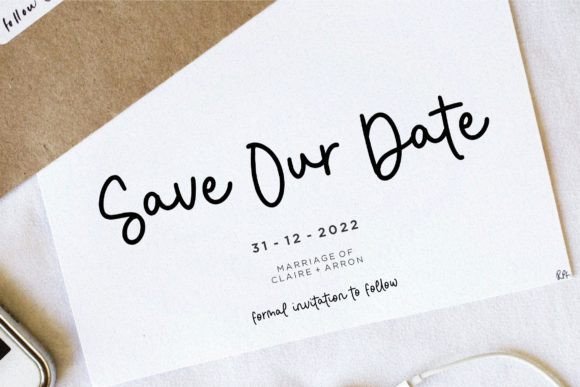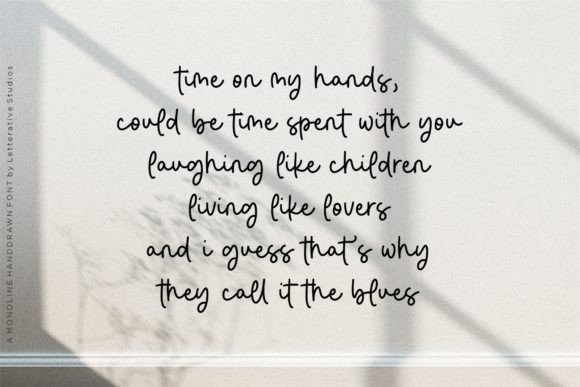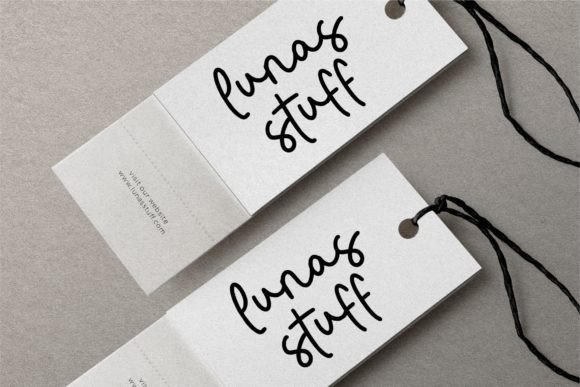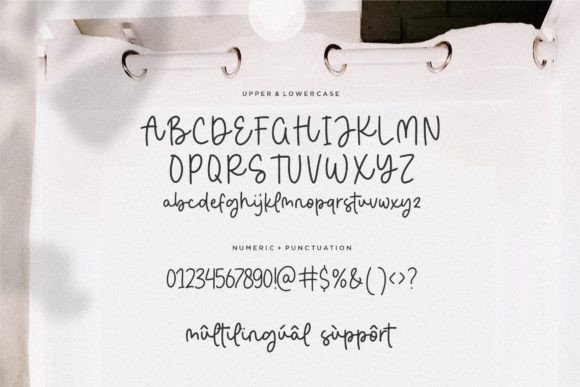
Sigitarian Font
A Fresh, Modern Handwritten Script Font
Sigitarian is a unique and contemporary handwritten script font that instantly elevates any design project. With its casual and relaxed style, this font adds a fresh, modern vibe that helps your work stand out.
If you’re tired of ordinary typefaces and want something that feels personal and authentic, Sigitarian is the perfect choice.
Perfect for Logos and Branding
The clean lines and dynamic flow of Sigitarian make it ideal for logos and branding materials. Its handcrafted look creates a sense of originality and warmth that resonates with audiences.
Use it for signature-style logos, brand names, or product labels to communicate a sense of creativity and individuality. The smooth connections between letters make every word feel cohesive and visually pleasing.
Great for Social Media and Marketing
Sigitarian is also perfect for social media graphics, promotional content, and advertisements. Its modern feel and eye-catching style help your posts grab attention in crowded feeds.
Pair it with clean backgrounds and minimalist imagery to let the unique letterforms shine. Whether you’re designing Instagram stories, Pinterest pins, or Facebook ads, this font will help create a polished, professional look.
Enhance Invitations and Packaging
Sigitarian isn’t just for digital projects—it looks fantastic in print, too.
Use it on invitations for weddings, parties, and special events to create a personal, handwritten touch. For product packaging, it adds a crafted feel that consumers connect with. From boutique soaps to handmade candles, Sigitarian makes products feel unique and high-quality.
Easy to Use and Highly Versatile
Sigitarian includes uppercase and lowercase letters, numerals, punctuation, and a selection of ligatures and alternates.
Its versatility means you can adapt it to a variety of styles—from casual and playful to elegant and sophisticated. Whether you’re working on quotes, apparel designs, posters, or websites, Sigitarian offers endless creative options.
Tips for Best Results
• Size Matters: Use Sigitarian in larger sizes to highlight the flowing curves and natural strokes.
• Keep It Simple: Pair it with clean, modern sans-serif fonts to balance the handwritten style.
• Use Contrast: Dark text on light backgrounds makes the details pop.
• Highlight Key Words: Use Sigitarian for headlines and important text to draw the eye.
Make Your Designs Stand Out
Sigitarian is more than just a font—it’s a tool for expressing creativity and originality. Its modern charm and relaxed style bring a unique touch to any project, helping you connect with your audience in a personal way.
Whether you’re crafting a logo, designing marketing materials, or creating memorable invitations, Sigitarian will elevate your work and make it shine.
Ready to Transform Your Designs?
Embrace the modern, handcrafted beauty of Sigitarian Font and unlock endless creative possibilities. Use it confidently to bring warmth, style, and originality to your next project.